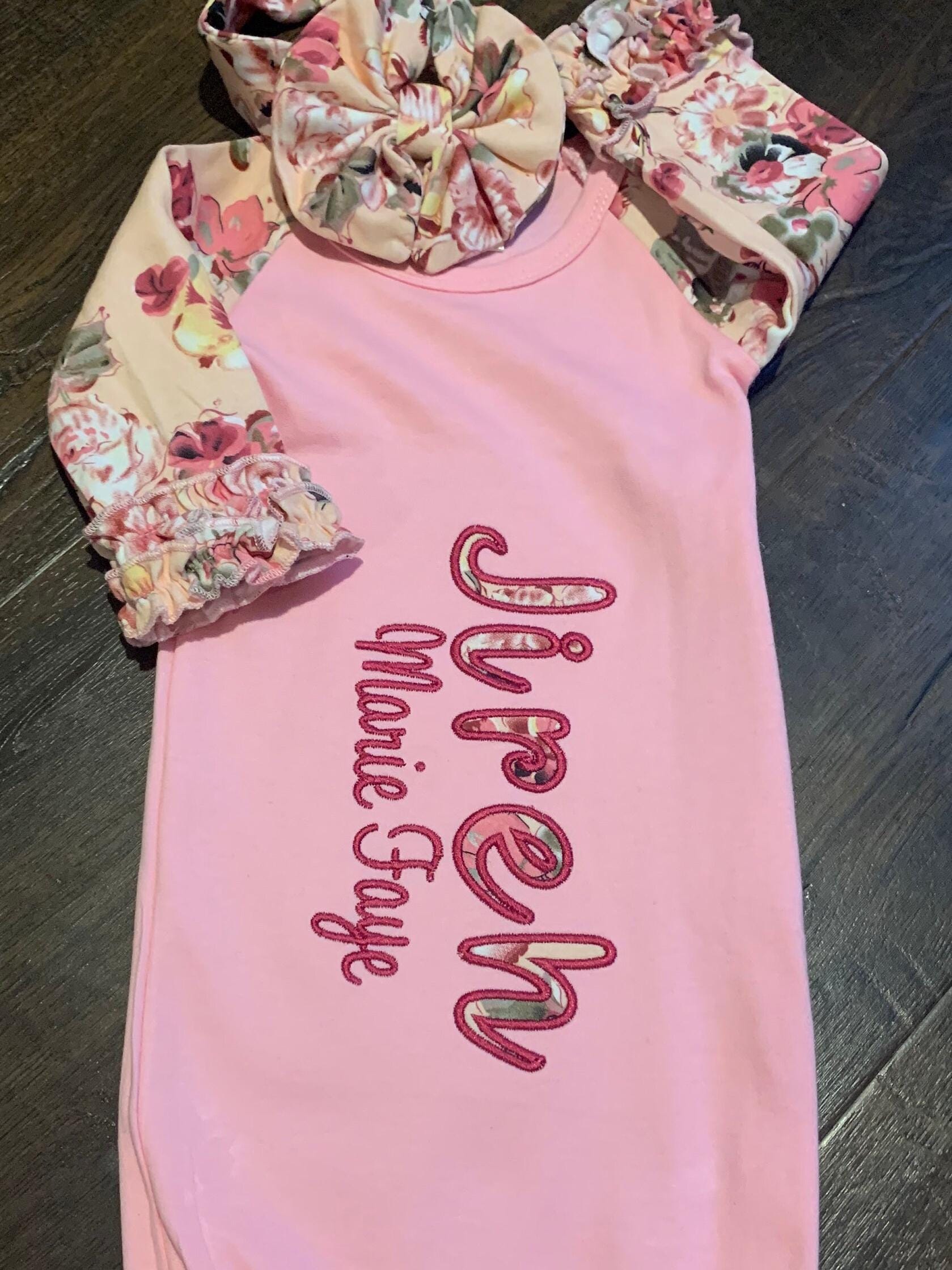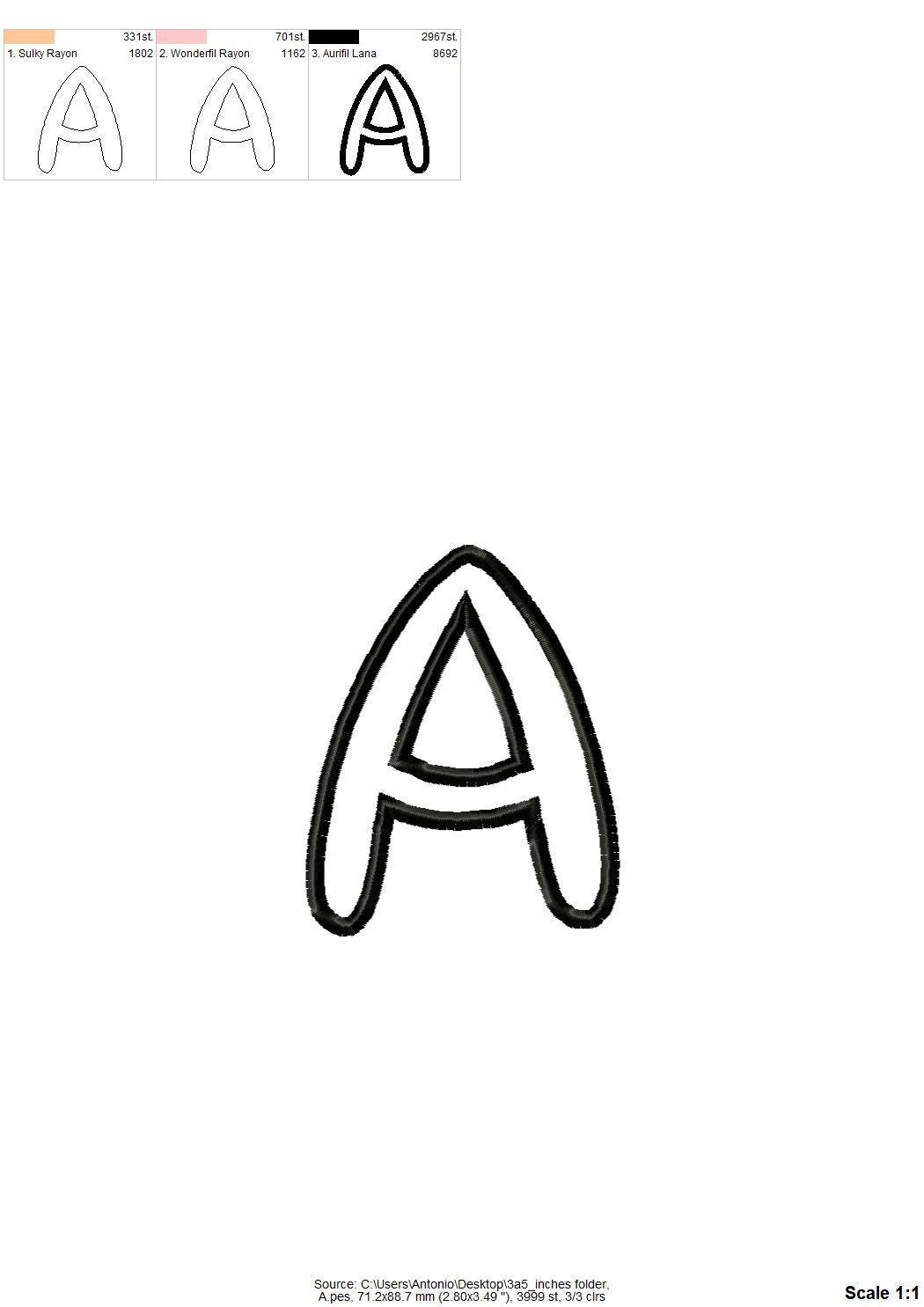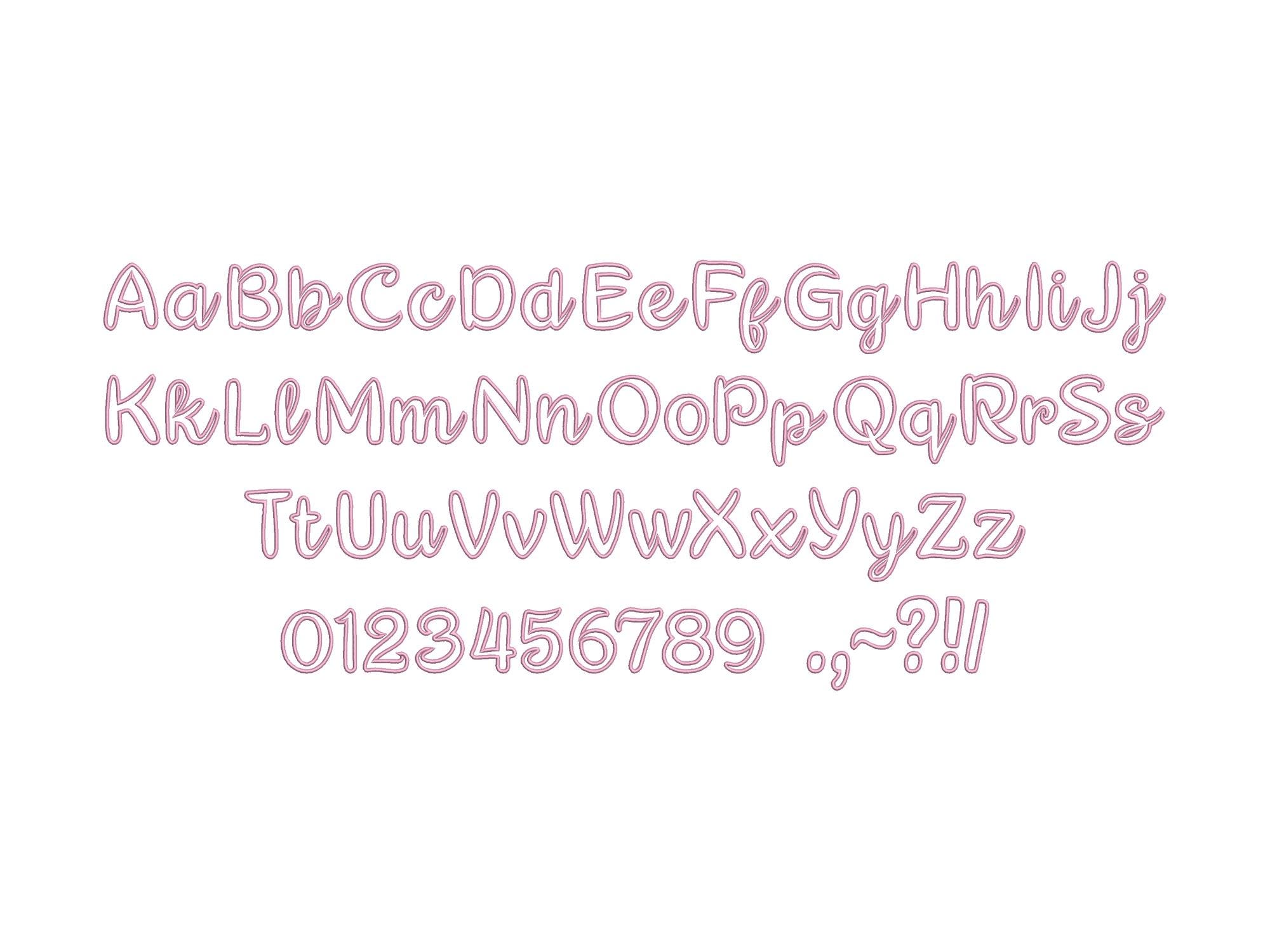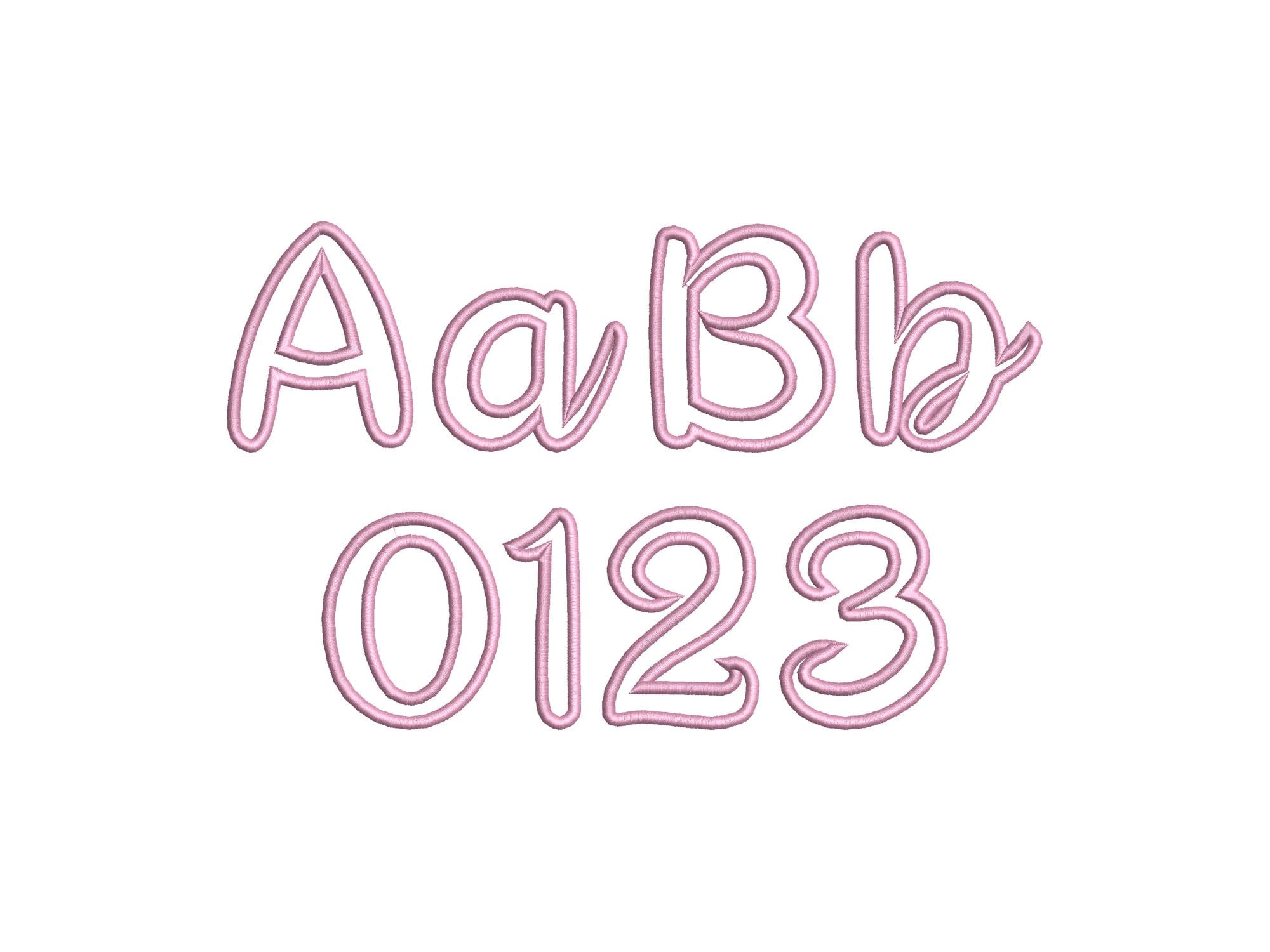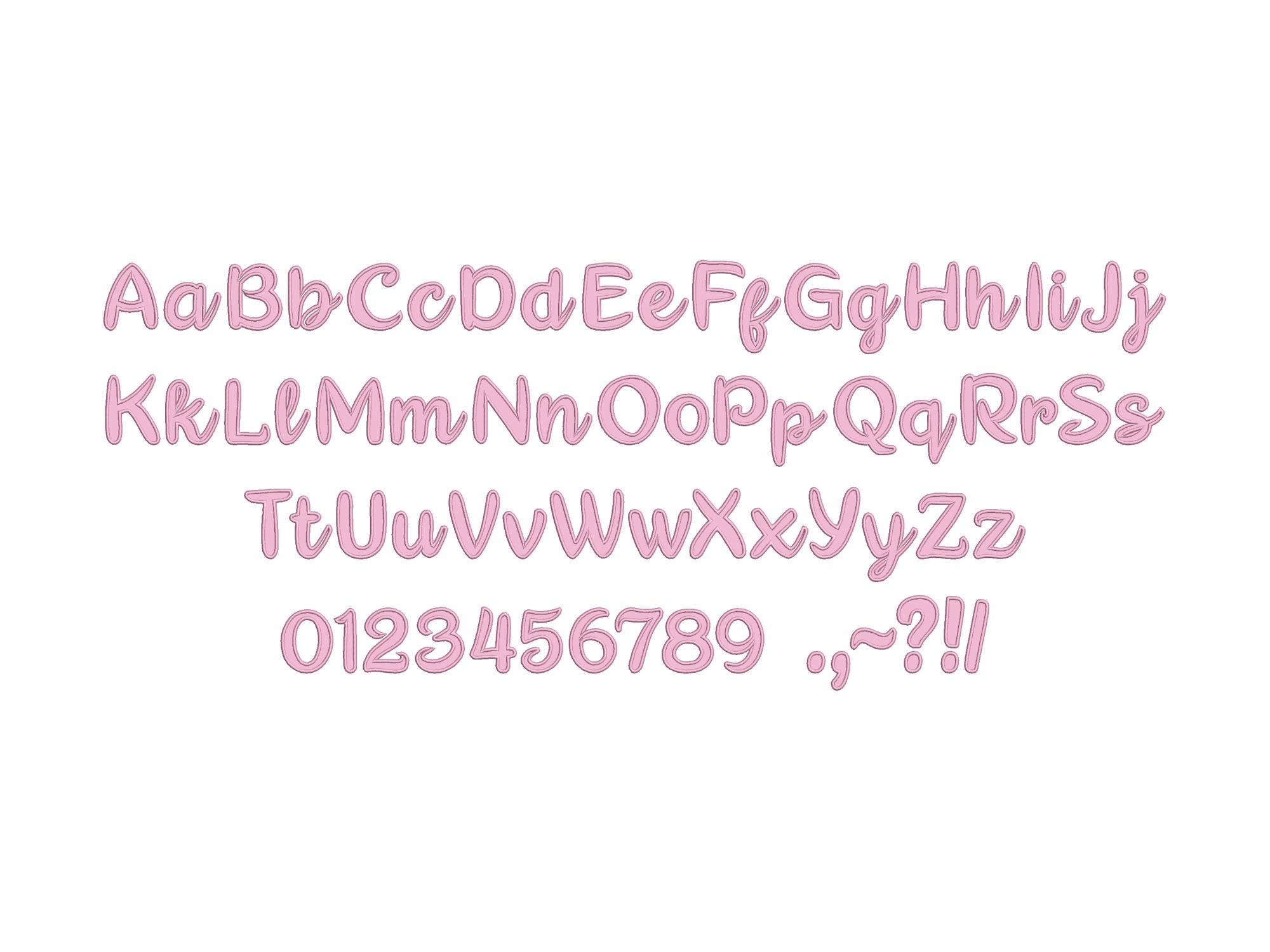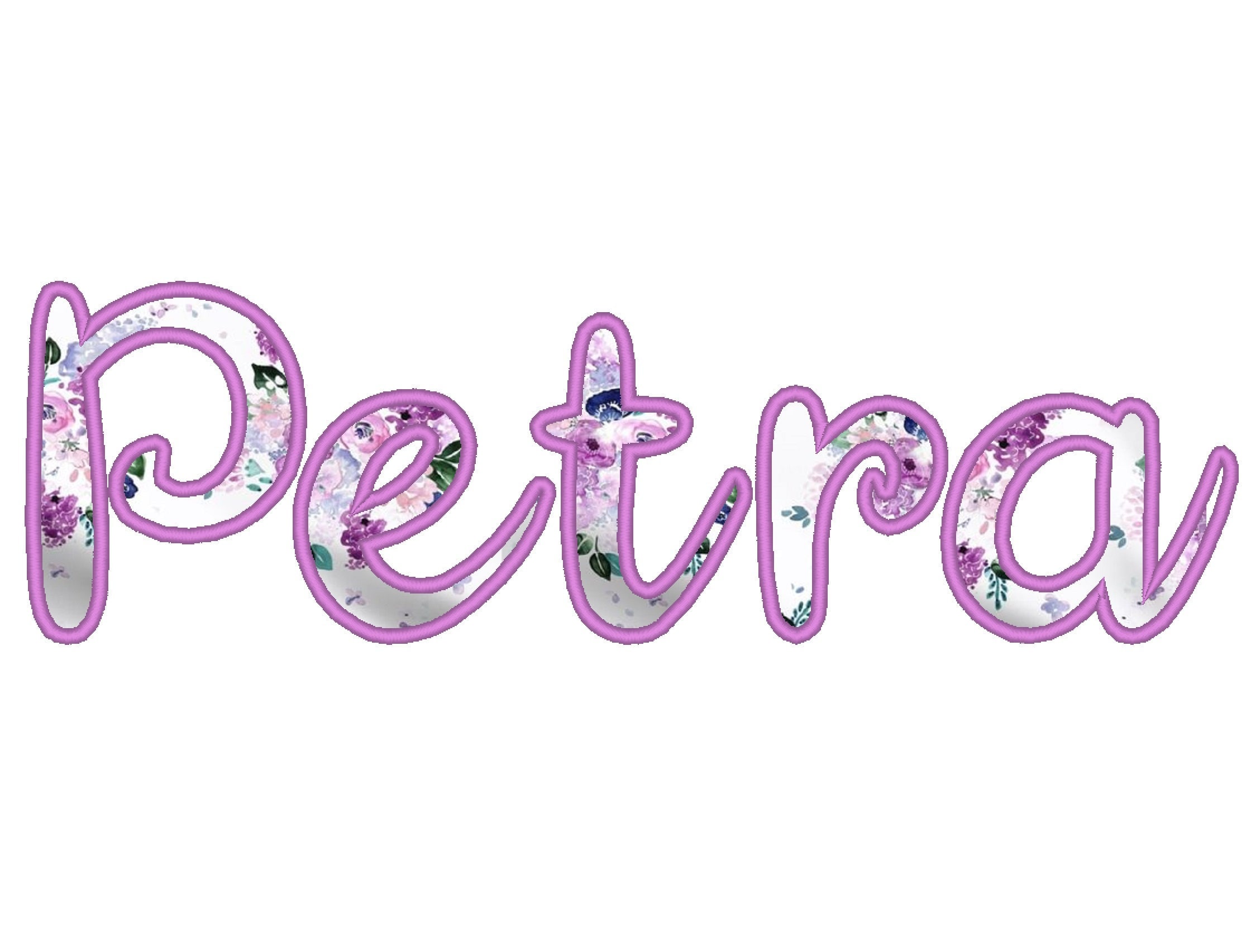
Monogram Applique Font Petra alphabet applique satin stitch outline machine embroidery designs size from 2 to 5.5 inch kids baby, BX
Entire alphabet has uppercase and lowercase letters Aa-Zz, and numbers 0-9.
UPDATE: Oct 2024, added punctuation.